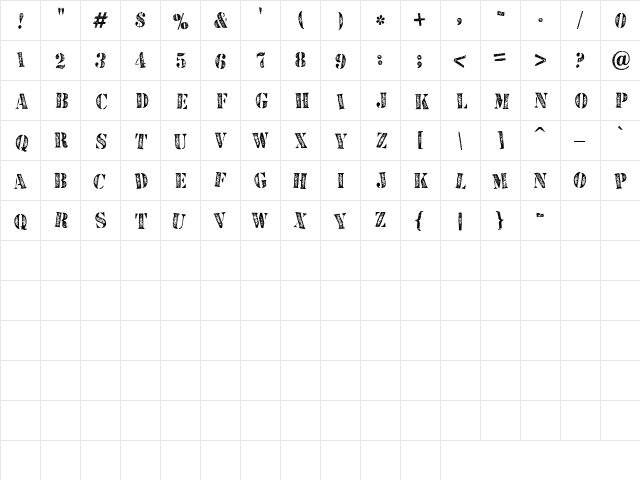
LD Stenciled Regular
Design Context for LD Stenciled Typeface
LD Stenciled borrows the utilitarian aesthetic of stencil lettering, with its characteristic cutaways and no-frills construction lending an industrial edge.
Ideal for industrial branding, streetwear, military-adjacent aesthetics, and urban signage projects.
Pro Tip: Pair LD Stenciled with raw, utilitarian design elements — exposed concrete textures, flat colour, and minimal ornamentation suit it well.